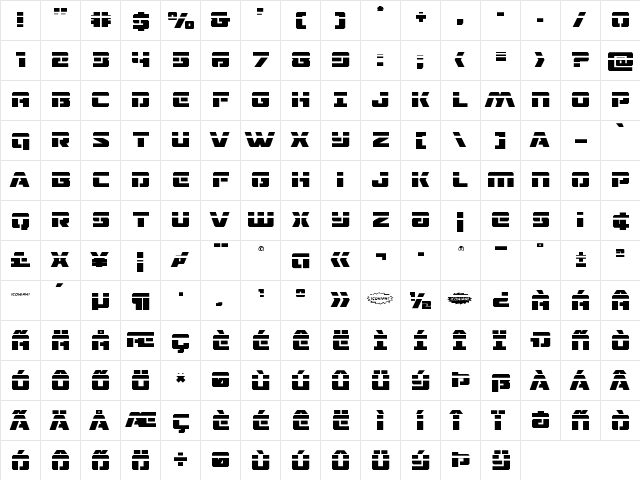
Drone Tracker Laser Regular
Design Context for Drone Tracker Laser Typeface
Drone Tracker Laser is a composed and adaptable typeface that performs quietly and consistently across a wide range of design contexts.